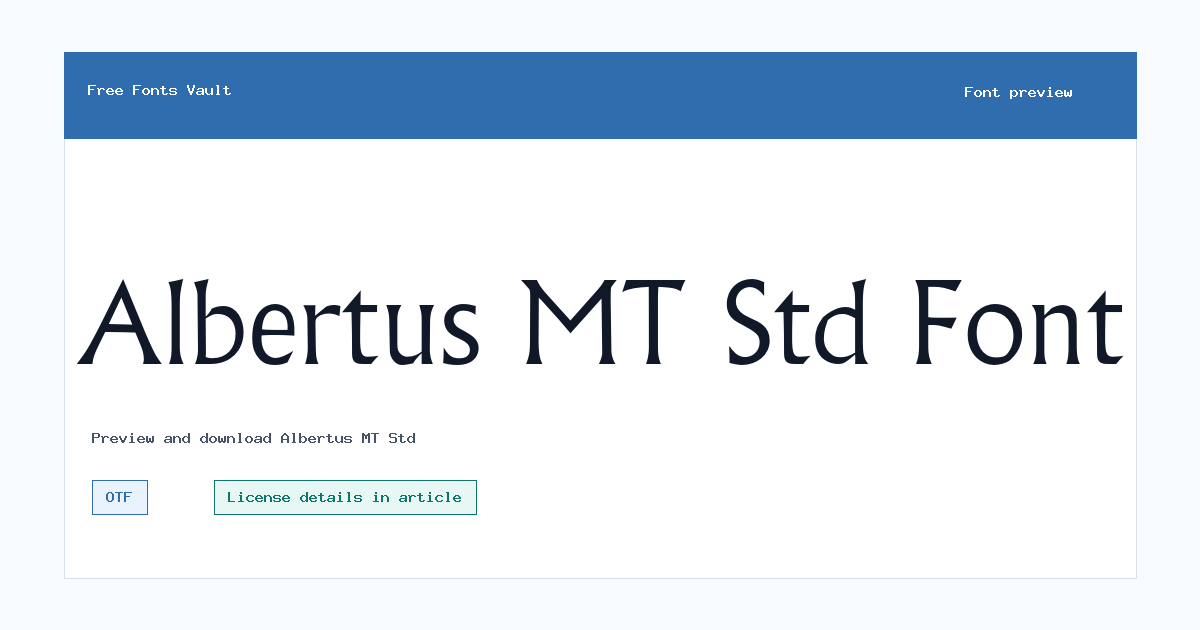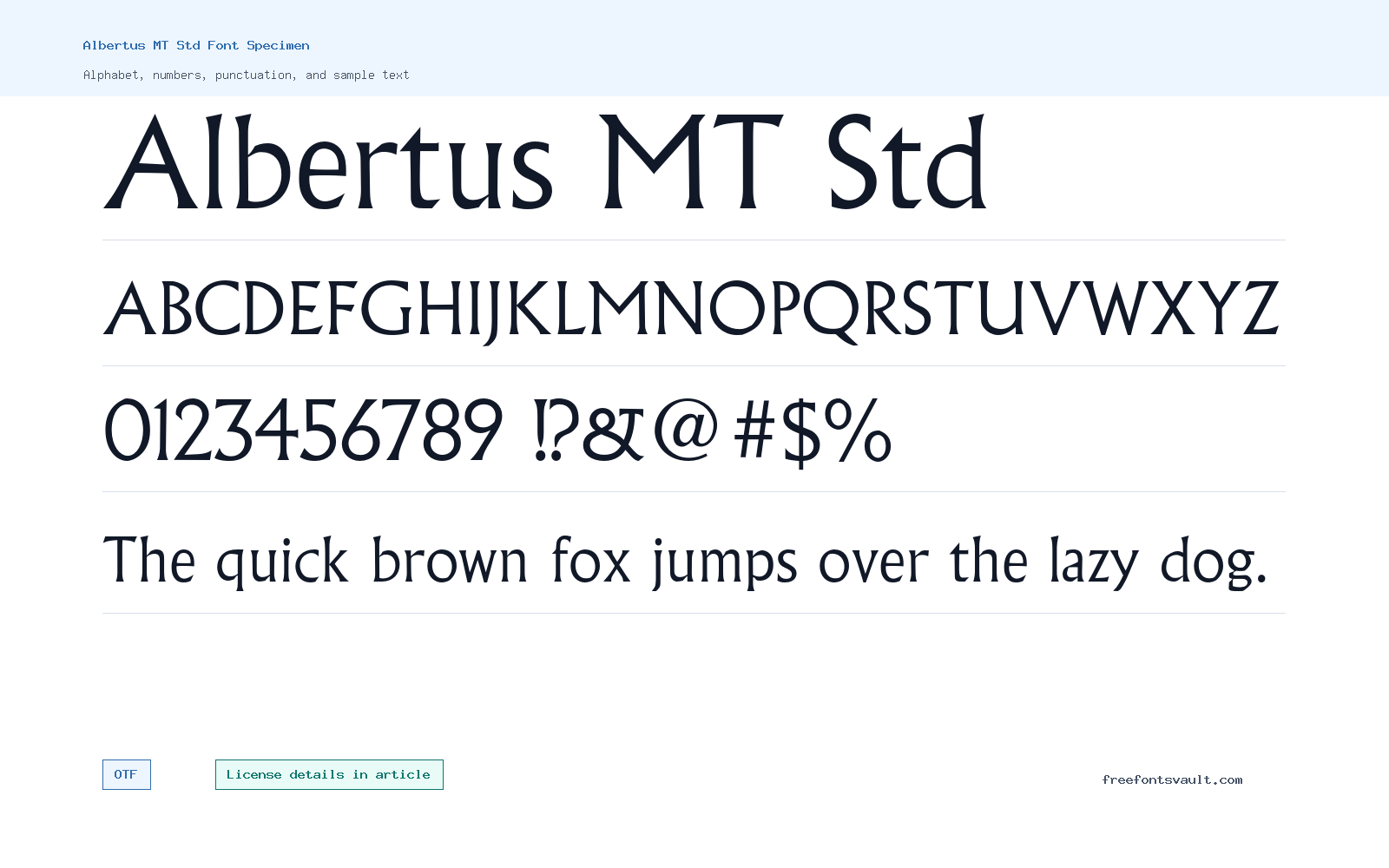
Albertus MT Std
- Designer Berthold Wolpe
Albertus MT Std font.
Albertus MT Std is a light serif display font with carved, flared shapes and a formal tone. The listed file is the Light cut, so it works best when the text has enough size and space to show its details.
About Albertus MT Std
The Albertus style has a distinctive inscription-like character: it is not a plain book serif, and it is not a neutral sans serif. Its letters feel structured and slightly carved, which makes it useful for headings, title cards, labels, and short editorial text where the font itself should add character without becoming overly decorative.
- Glyphic serif look with flared, carved-looking letter endings.
- Best suited to short display text rather than dense paragraph reading.
- Useful when a headline needs a classic, formal, or inscription-style voice.
- Pairs well with a quieter sans serif or readable text serif for support copy.
- Book-style headings, title cards, posters, and editorial display text.
- Elegant labels, invitations, name treatments, and short brand mockups.
- Large pull quotes or section headers with generous spacing.
- Design previews where you want a refined serif without a heavy stroke.
- Layouts that can keep the font away from noisy backgrounds and tiny sizes.
Use the preview with your real headline, not only the sample text. Increase letter spacing slightly if the words feel tight, keep background contrast high, and pair the Light cut with a simpler font for paragraphs. If the design needs strong readability from far away, compare it with a heavier companion or another display serif.
Who designed Albertus MT Std?
The entry credits Berthold Wolpe as the designer.
What is Albertus MT Std best used for?
It is best for short display typography: titles, posters, headings, labels, invitations, and formal name treatments.